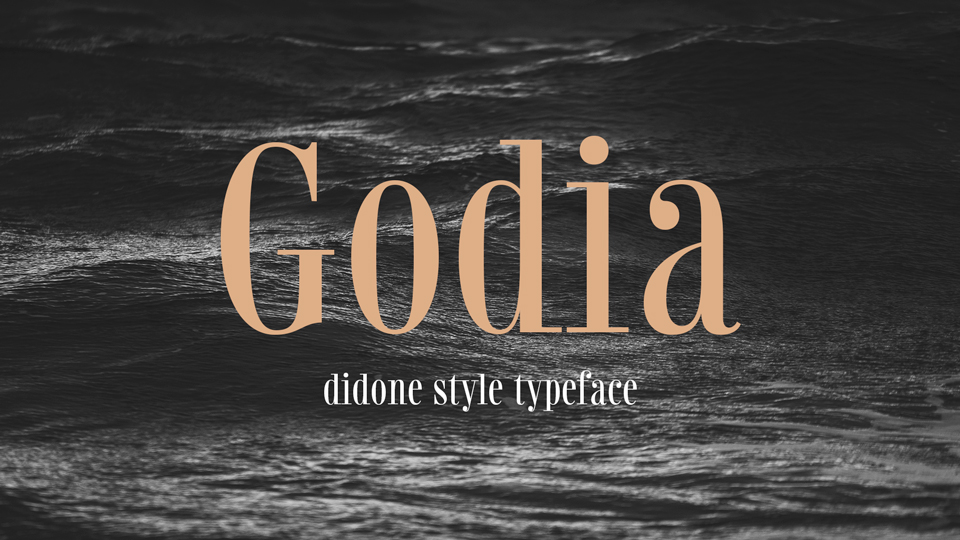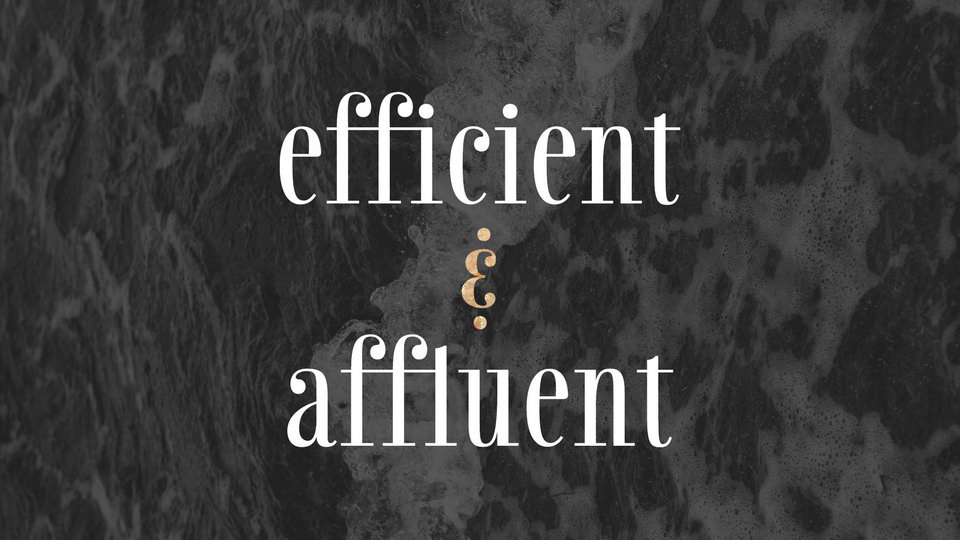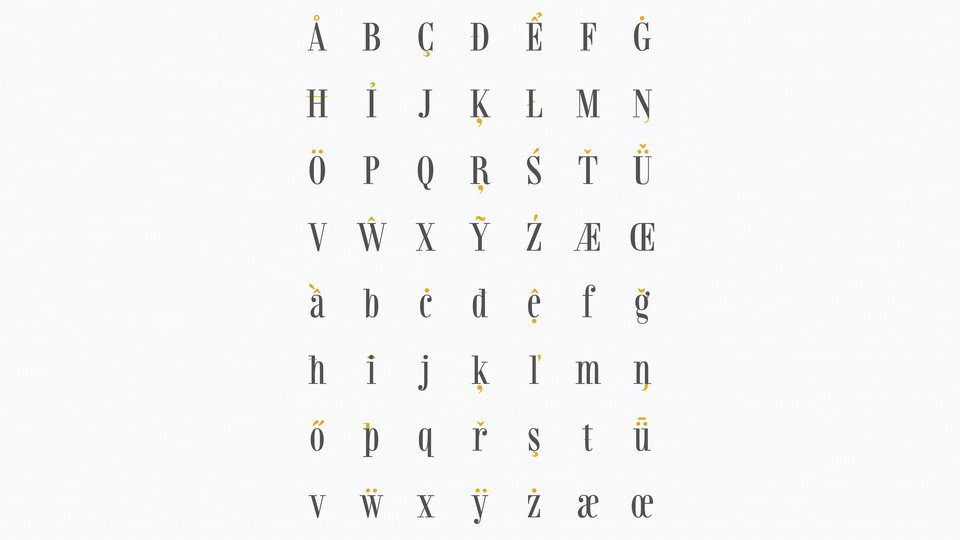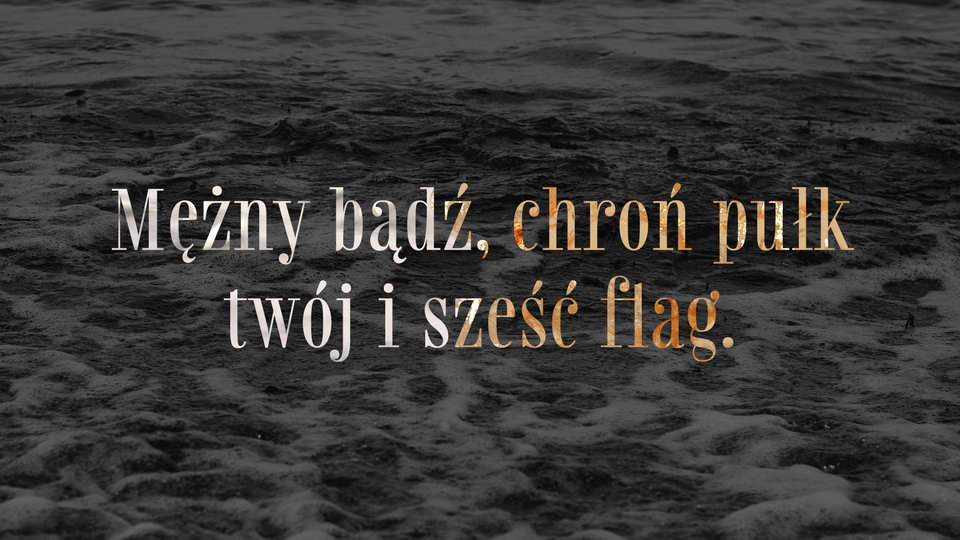
Godia is an elegant didone style typeface with a large x-height and semicondensed width. It stayed true to the classic characteristics, from the double-story a’s and g’s to the shoulders of the lowercase n, m, and h that extend smoothly from the stem.
Godia looks amazing for logos, branding, fashion and magazines, apparel, social media and more.